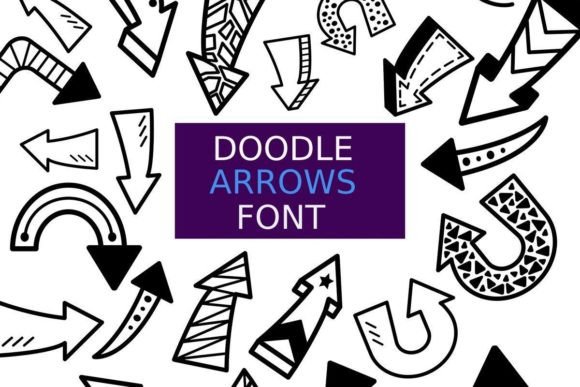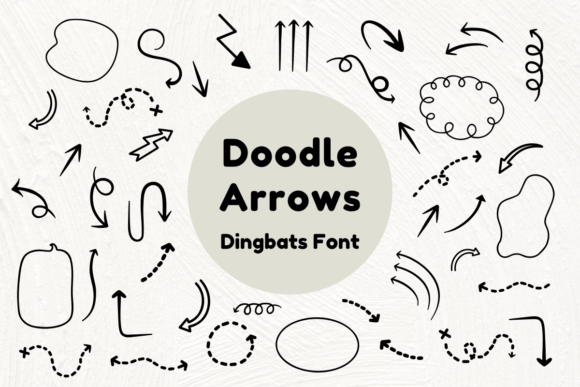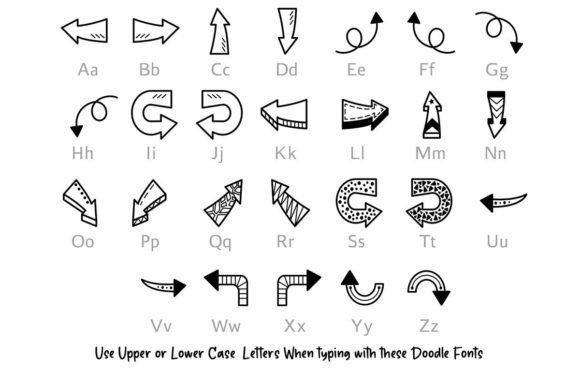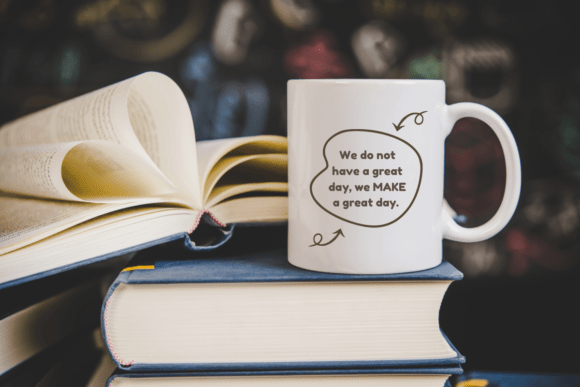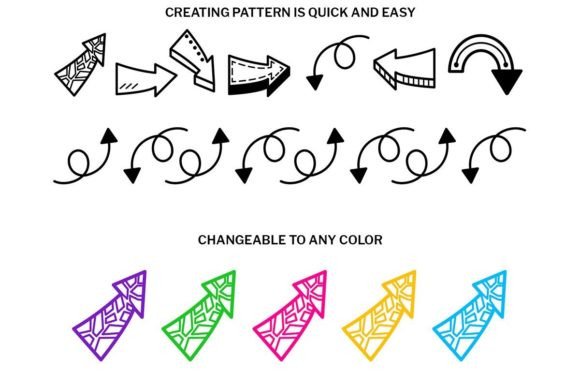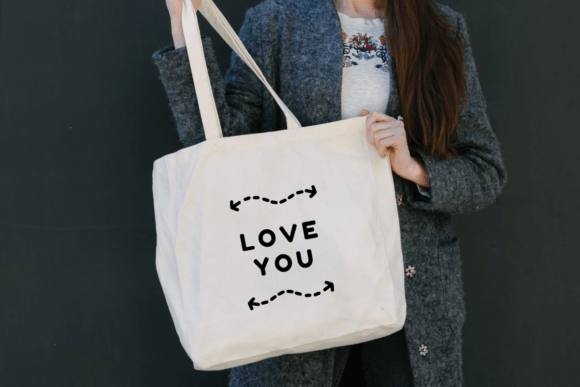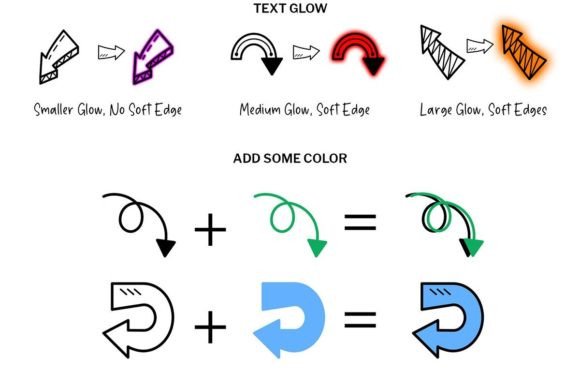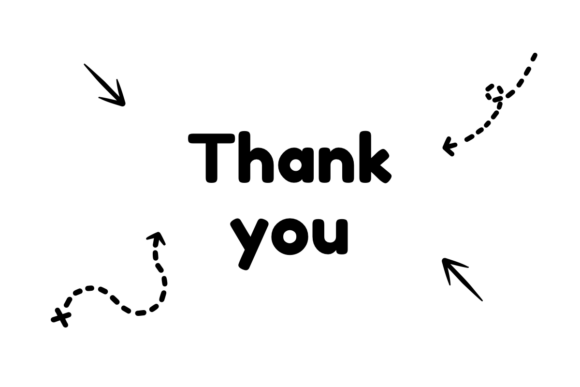
Doodle Arrows Font: A Cute DIY Dingbats Font for Cricut & Craft Projects
About the Doodle Arrows Font
Experience the unique personality of Doodle Arrows Font, a font designed for impact. Doodle Arrows is a dingbats font with an abstract theme. This font can enhance your creative projects such as wedding invitations, DIY, crafts, decorations, logos, and many other creative ideas.
Doodle Arrows thrives in projects requiring a playful and slightly whimsical touch. It’s ideal for logos, short headlines, decorative elements in invitations or packaging, and social media graphics where its abstract nature adds visual interest. However, its limited character set makes it unsuitable for body text or lengthy paragraphs. Avoid using it in UI or situations demanding high readability.
Its bold, informal personality pairs well with clean sans-serif fonts like Open Sans or Lato for balance, or a contrasting script font like Great Vibes for a more hand-crafted feel. For a more modern aesthetic, consider pairing it with a geometric sans-serif such as Montserrat. These pairings provide readability and structure to counter Doodle Arrows’ playful energy.
The font’s overall mood is energetic and friendly, making it a good choice for brands targeting a younger demographic or those emphasizing creativity and fun. Consider its limitations regarding text length when choosing projects.
Doodle Arrows Font Usage Examples
Doodle Arrows Font Example